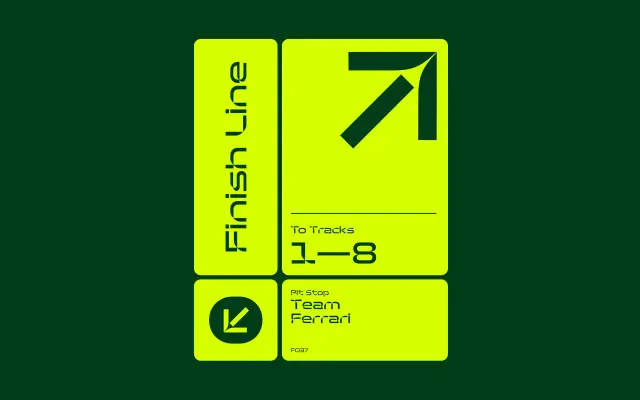
F37 Aria
A three-weight display sans from F37 with a motorsport accent, framed around racing lines and Silverstone.
A compact display sans from F37 Foundry built across three weights, Light, Regular and Bold. F37 pitch it through motorsport cues, with sample settings referencing racing lines, Silverstone and the ARIA Music Awards. Pairs in the foundry's suggestions with F37 Blanka Mono, F37 Randy and F37 Mancunio, sitting in editorial mastheads, sports and event branding where you want a sharp, kinetic sans with a defined voice.
F37 anchor Aria to motorsport iconography, citing racing lines, Silverstone and the ARIA Music Awards, drawn as a tight three-weight display sans.